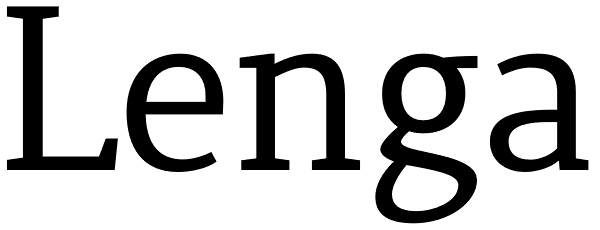
Lenga
Lenga is a kind of beech originally from South America. The explorers who discovered this beech in Tierra del Fuego, thought it looked like a tree from their home country and named it 'Lenga'. Like many of southern hemisphere beeches, the Lenga...